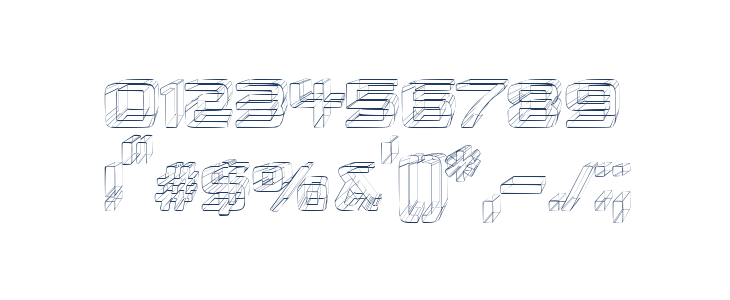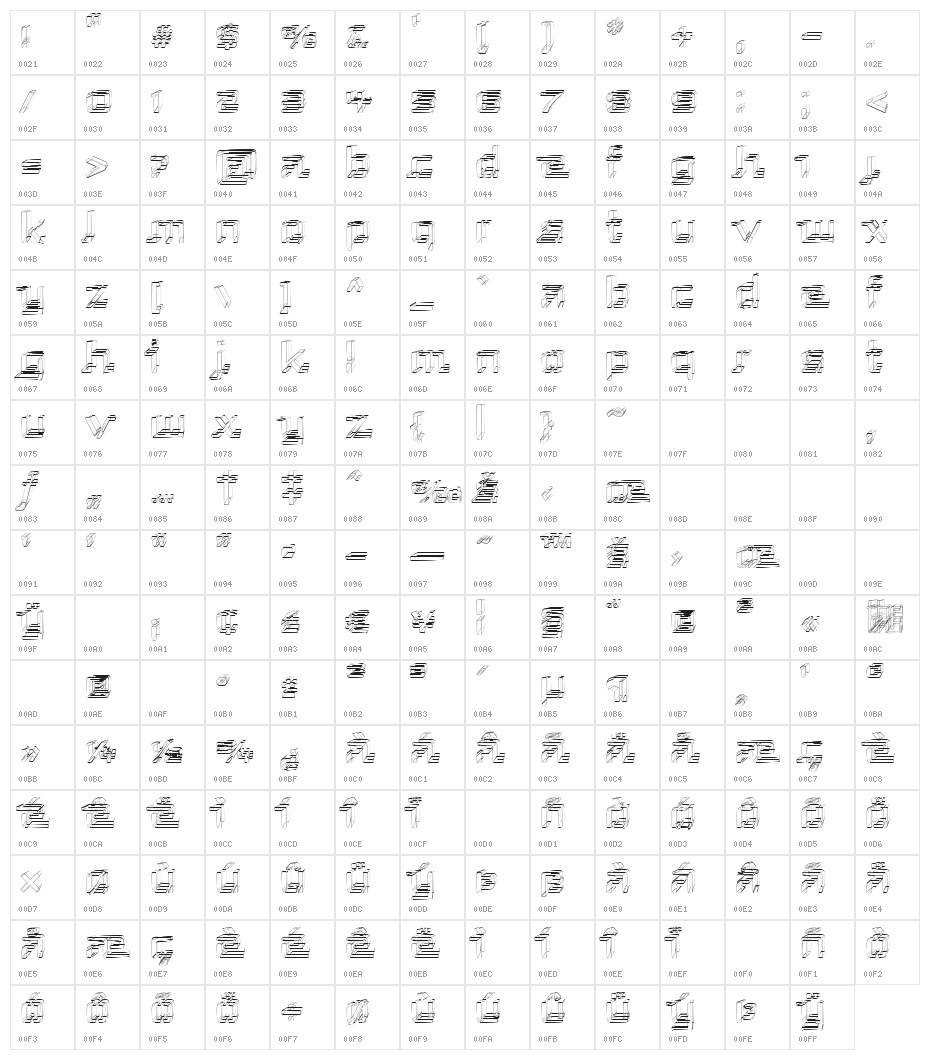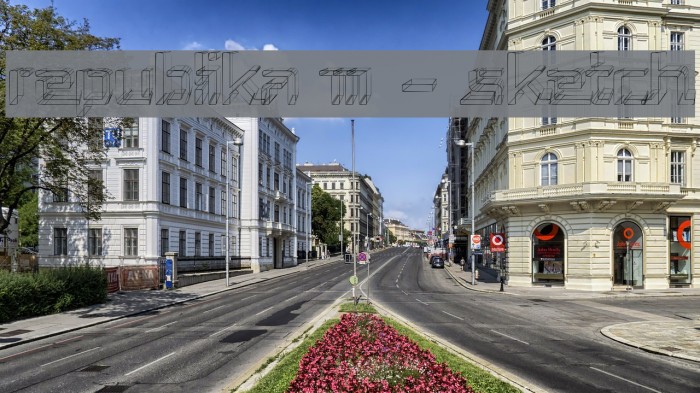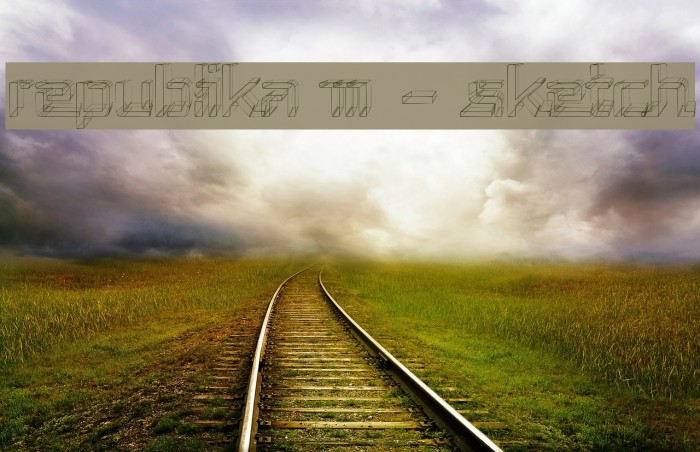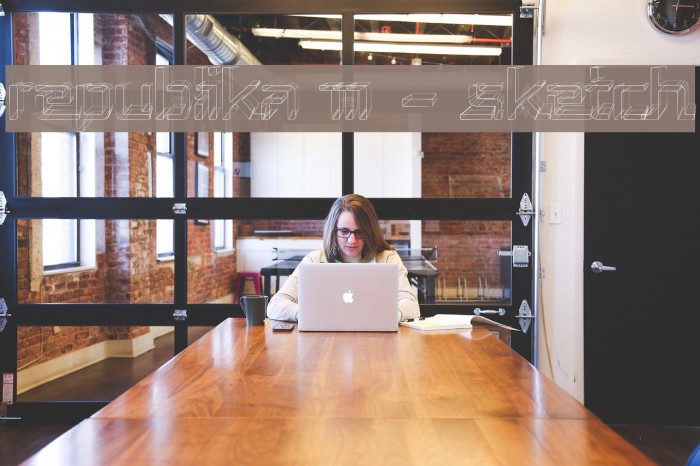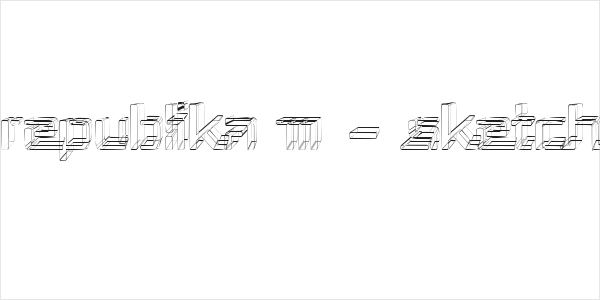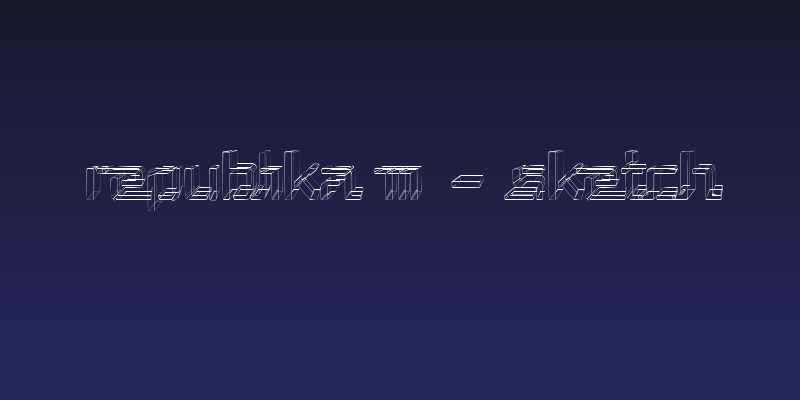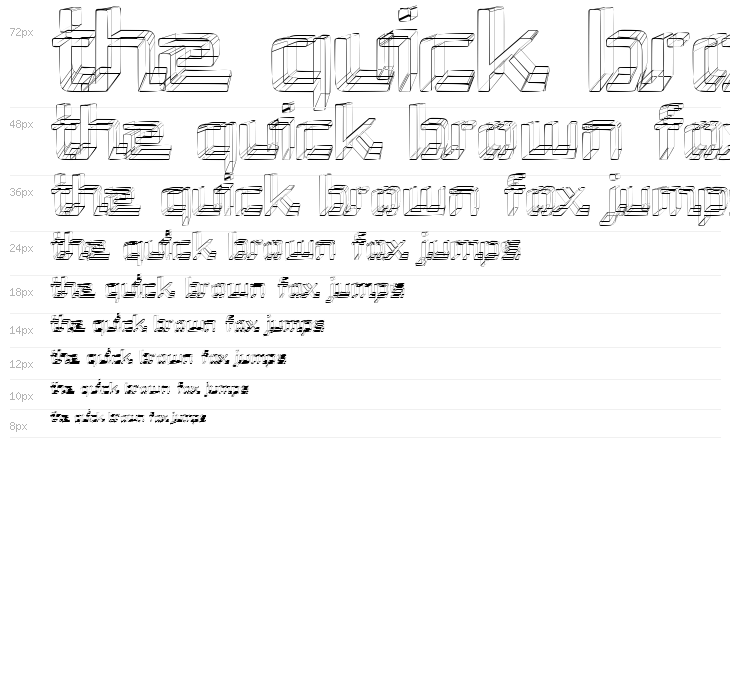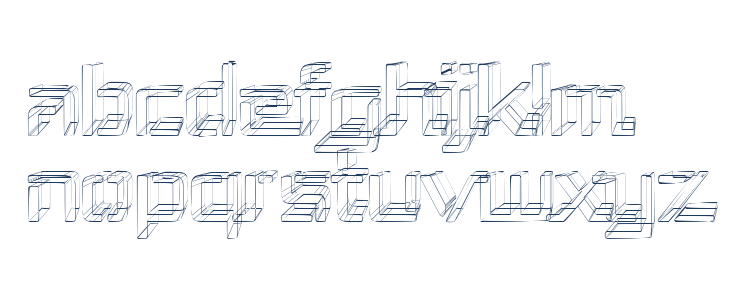
Republika III - Sketch Font
Republika III - Sketch Description
This font features a unique, three-dimensional sketch style that gives each character a layered, architectural appearance. The letters are constructed with overlapping lines, creating a sense of depth and complexity. The geometric shapes are consistent throughout, with a modern and technical feel. The uppercase and lowercase letters maintain a uniform height, while the numbers and special characters follow the same design principles, ensuring a cohesive look. This font's intricate design makes it stand out, offering a visually engaging experience.
| Proposed Projects | Ideal for projects requiring a modern and technical aesthetic, such as architectural presentations, tech branding, or creative posters. |